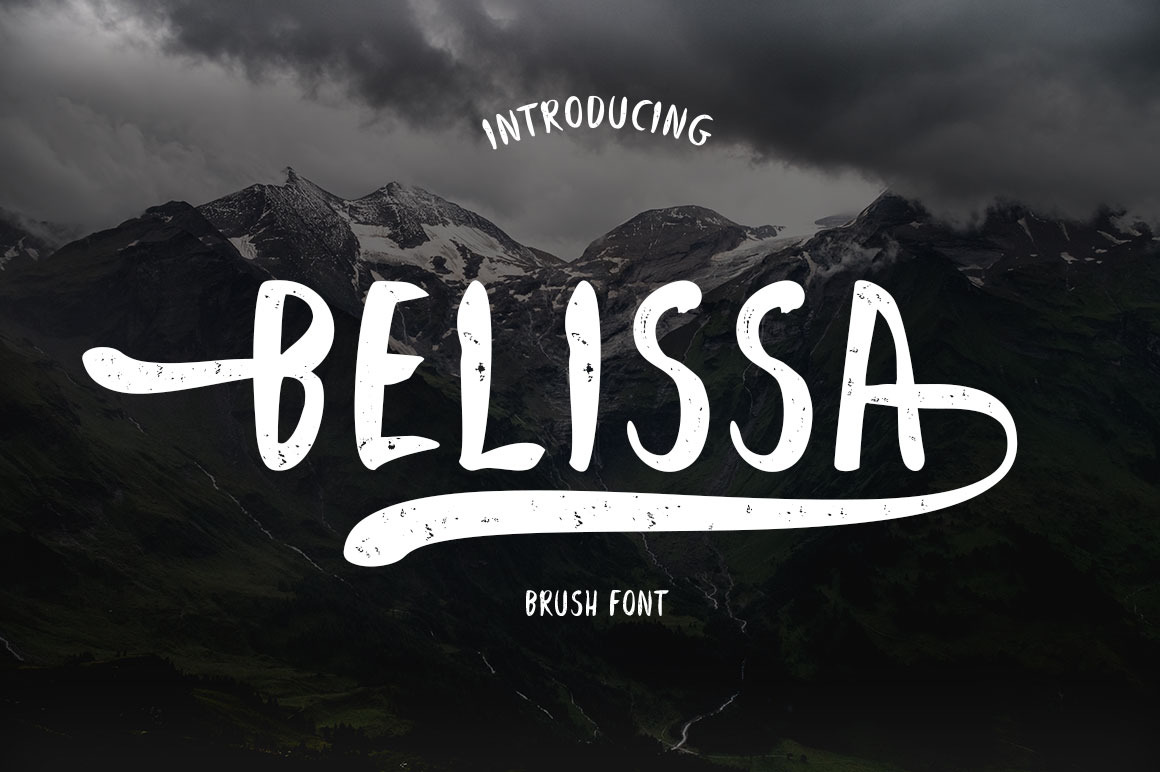
Belissa Font
INTRODUCING
Belissa is a handwritten brush made with love. Simple and elegant fonts, it's perfect to put personal nuances into something you're working on.
This font supports all international languages. It is perfect for logos, quotes, badges, labels, packaging designs, blogs, websites, designs, headlines, banners, posters, prints, T-shirts, magazines, promotional products, templates, etc.